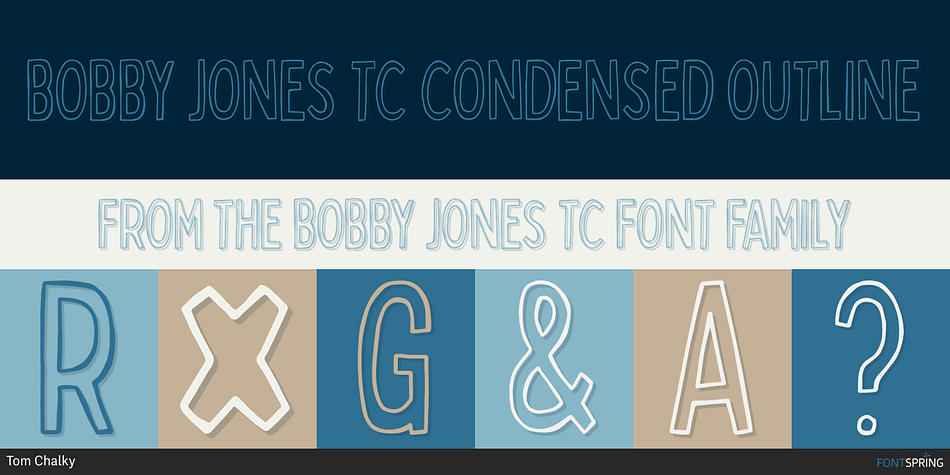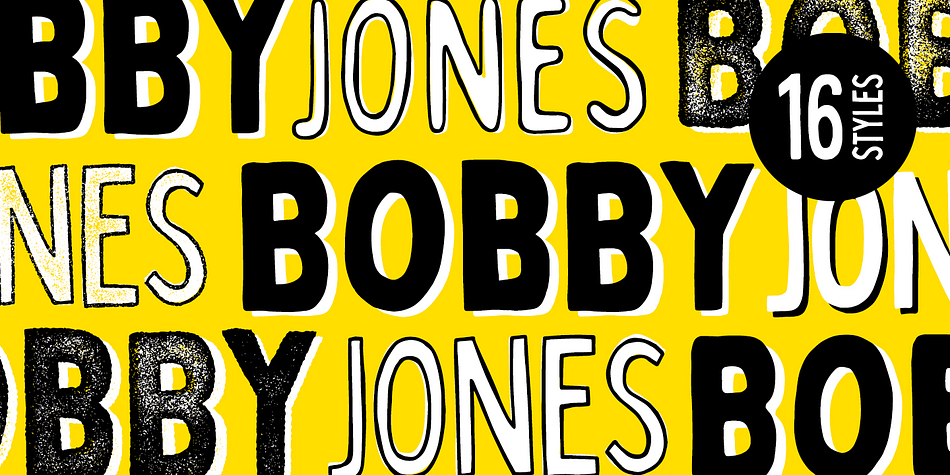
Bobby Jones TC Condensed Outline
Designed by Tom White, Bobby Jones TC is a display sans font family. This typeface has sixteen styles and was published by Tom Chalky.
Introducing The Loud & Proud Bobby Jones Font Collection Inside you’ll find 16 quirky handcrafted fonts, oozing with personality, ripe and ready to take center stage within a variety of creative and fun design projects. If you’re looking to grab eyeballs with an ad campaign, a logo design, apparel, printed stationery, and all that other good stuff, then worry not. Bobby has you covered.
We all come with imperfections and Bobby is no exception! His outlines are slightly off, his corners are irregular, his straights aren’t straight, but he’s cool with it. In fact, he’s too busy strutting his stuff.
Designed a little over five years ago, the original Bobby Jones Font was my first-ever product. This new and improved version has been entirely redesigned from bottom to top. Holding dearly to the punch that the original had, while adding a whole lot of extra power. I hope you enjoy the Bobby Jones Family as much as I do and have, and as always, if you have any questions or comments, please do not hesitate to get in touch. I’d love to hear from you. (tom[at]tomchalky.com)